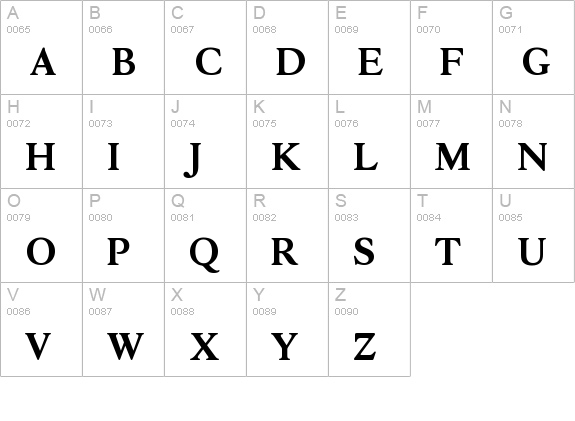
HessOldStyleBold Font Details
HessOldStyleBold is a classic and timeless font that exudes elegance and sophistication. With its bold and sturdy design, this font is perfect for creating eye-catching headlines, titles, and logos that demand attention. Its vintage charm adds a touch of nostalgia to any design project. What sets HessOldStyleBold apart is that it is available for free download at FontsMarket.com. This means you can easily access this high-quality font without any cost, making it a valuable addition to your font collection. Whether you're designing for print or digital media, HessOldStyleBold is sure to make a lasting impression with its strong and commanding presence.